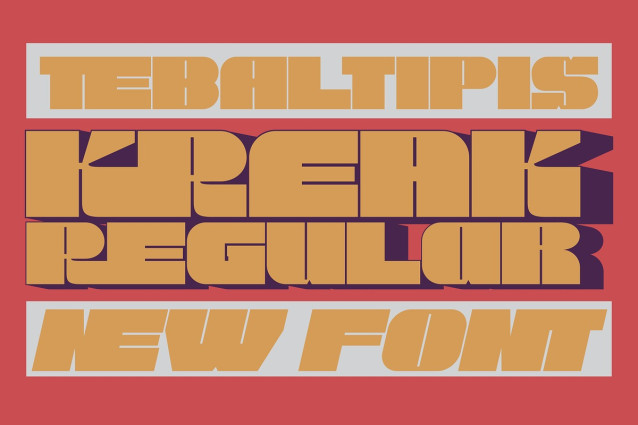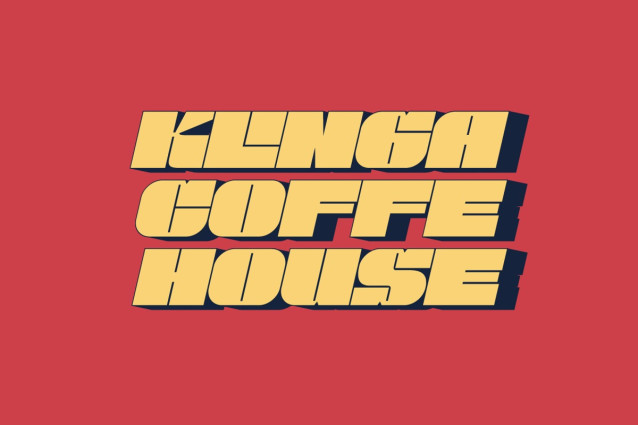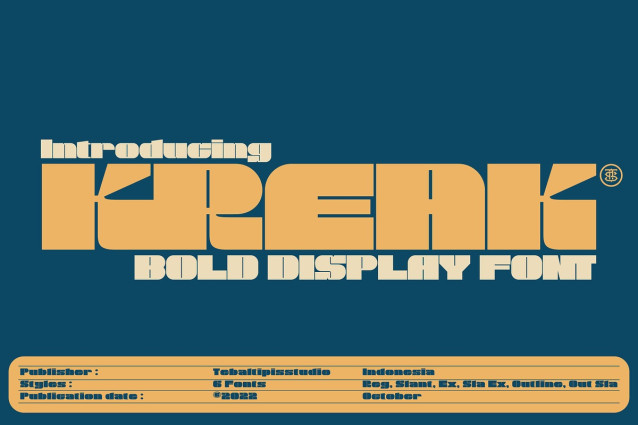
Kreak Display Font
Kreak Display Font is a bold display font with 6 various styles for your needs. Kreak has uppercase, lowercase, alternative, and ligature letters. It’s fun, pop, vintage, and playful!